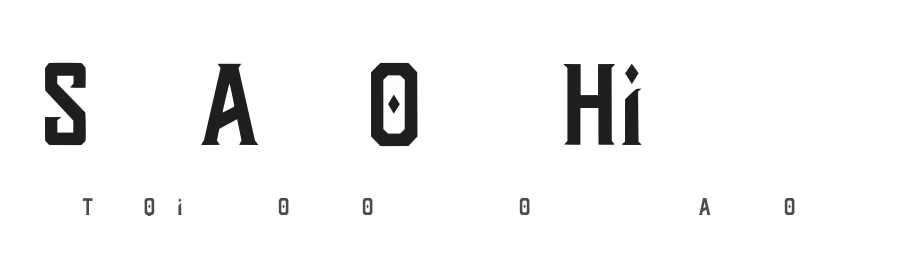
About Luxurossa Font
The Luxurossa is a classy and elegant serif font. It has a clean and modern style which will a luxury impression to your designs.
| Designer | Artspace 2018 |
Luxurossa Font is a versatile serif font that works for both headings and body text. Pair it with a contrasting sans-serif or slab serif font to add visual interest and a clear distinction between titles and body copy.
Luxurossa Font
by MJB Letters